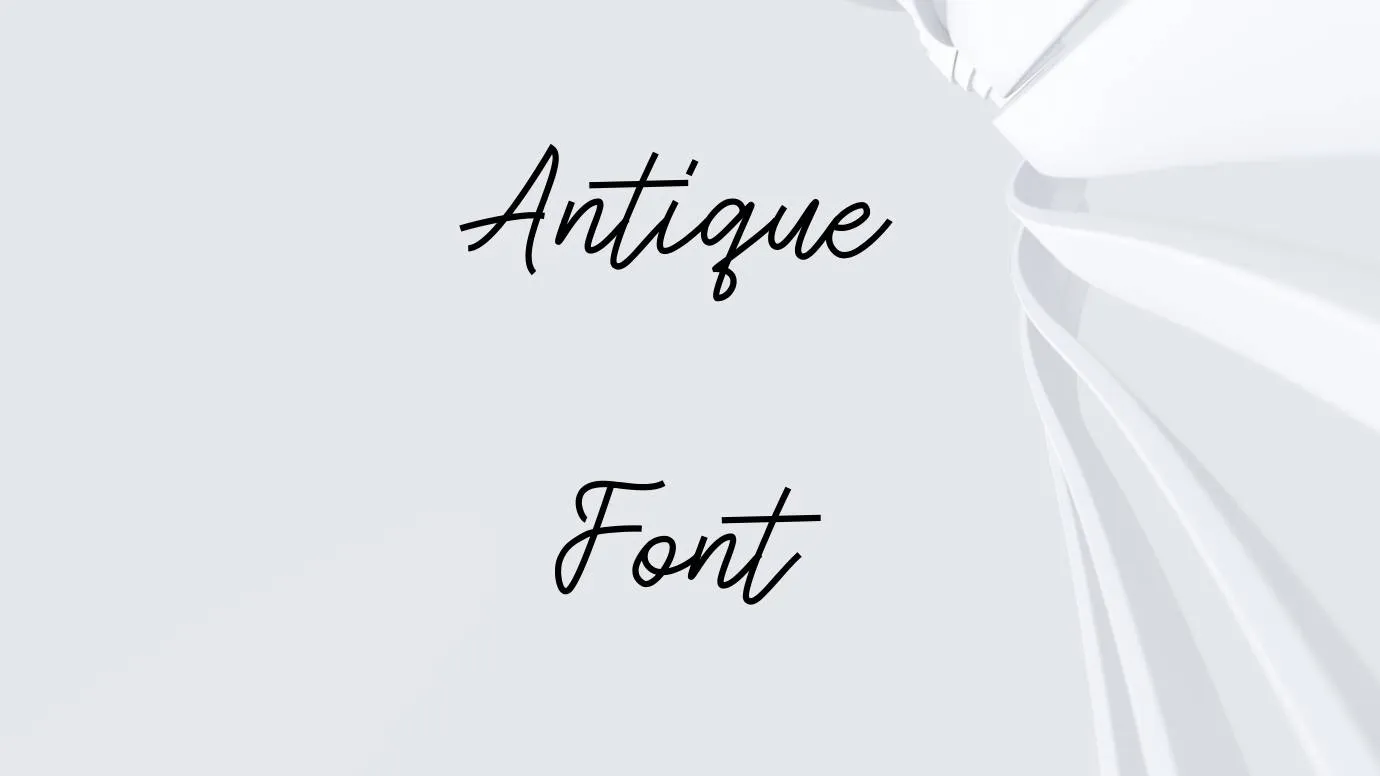
Antique Font Family is a modern typeface that has unique and lovely handy-drawn script characters. The characters of this font give a marvelous touch to your designs. This cozy font was designed by Typia Nesia.
This amazing font is available in regular, thin, and italic weights and a number of styles. Its beautiful look is perfect for use in calligraphy designs. This eye-catching typeface is also perfect for pairing with the southern font that is best for unique designs.